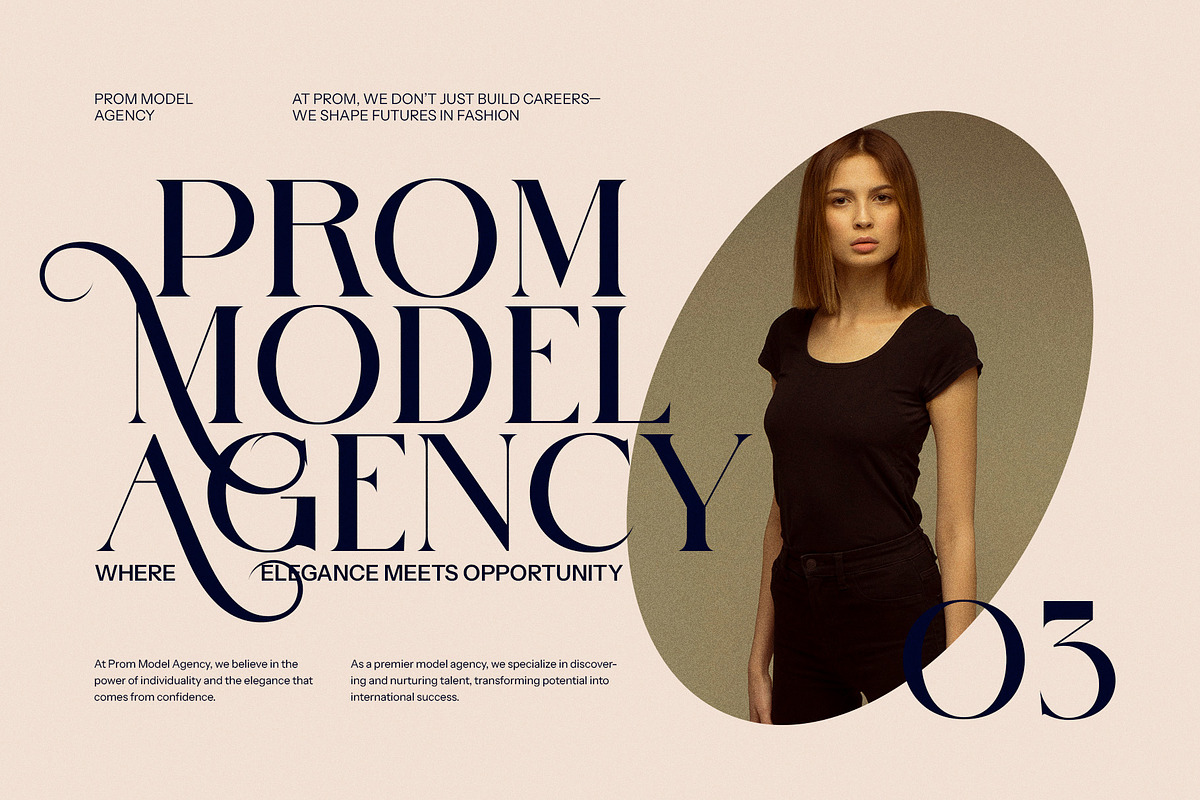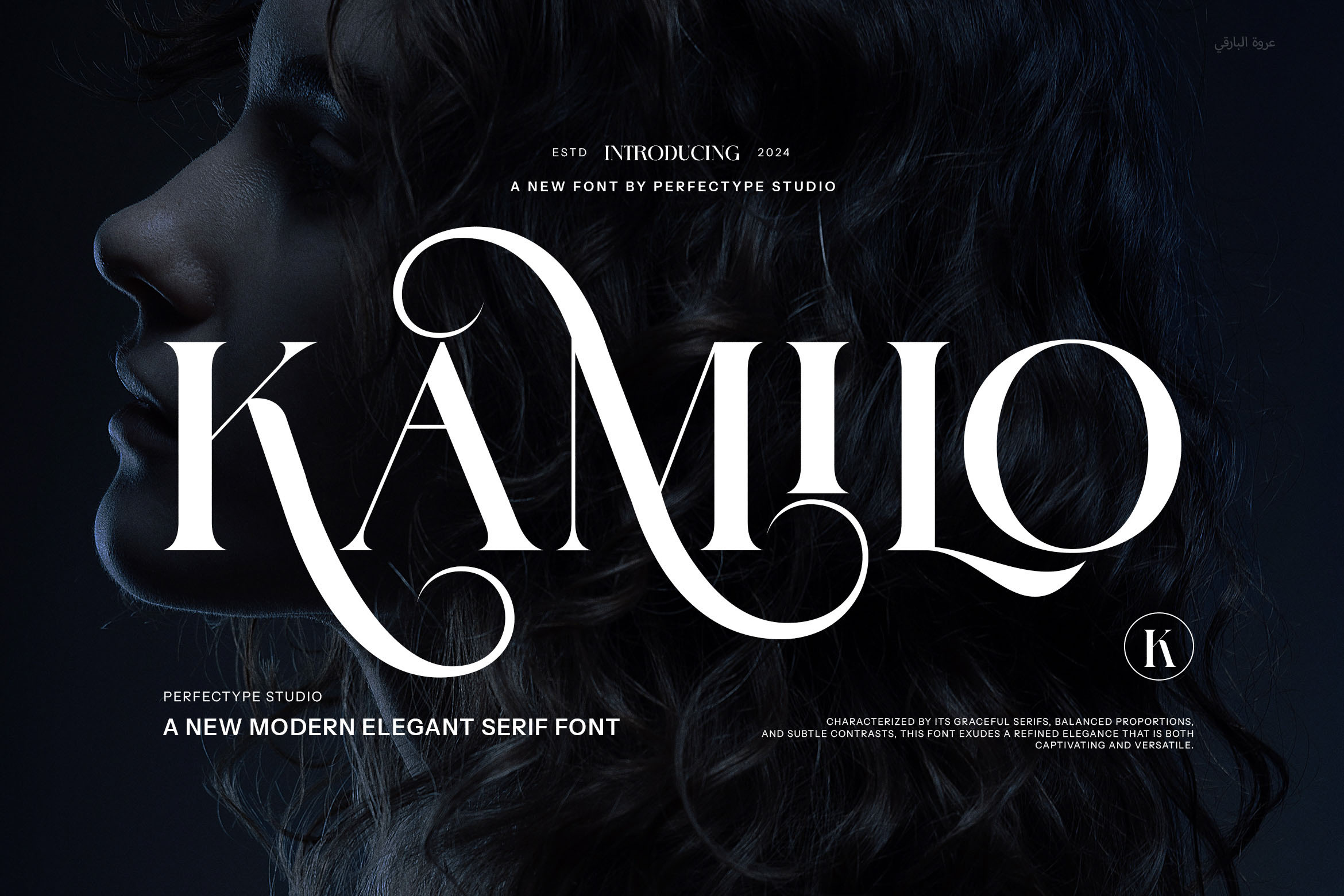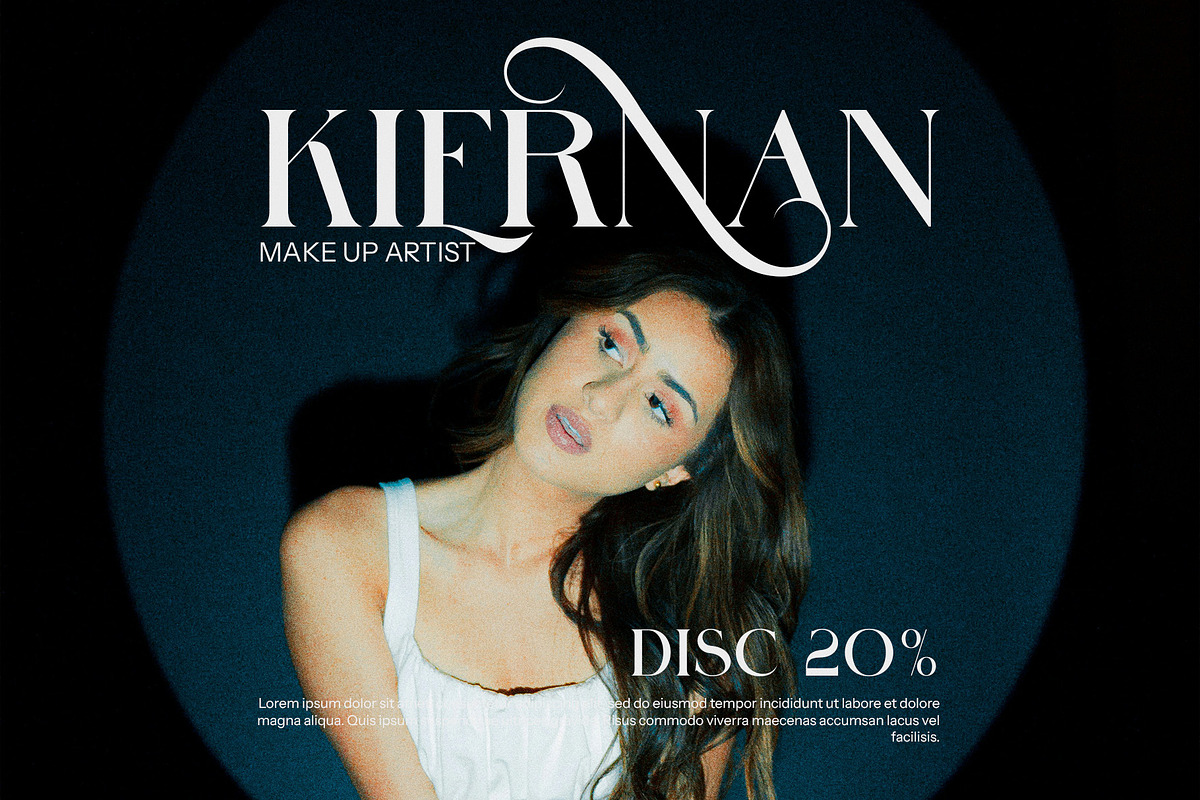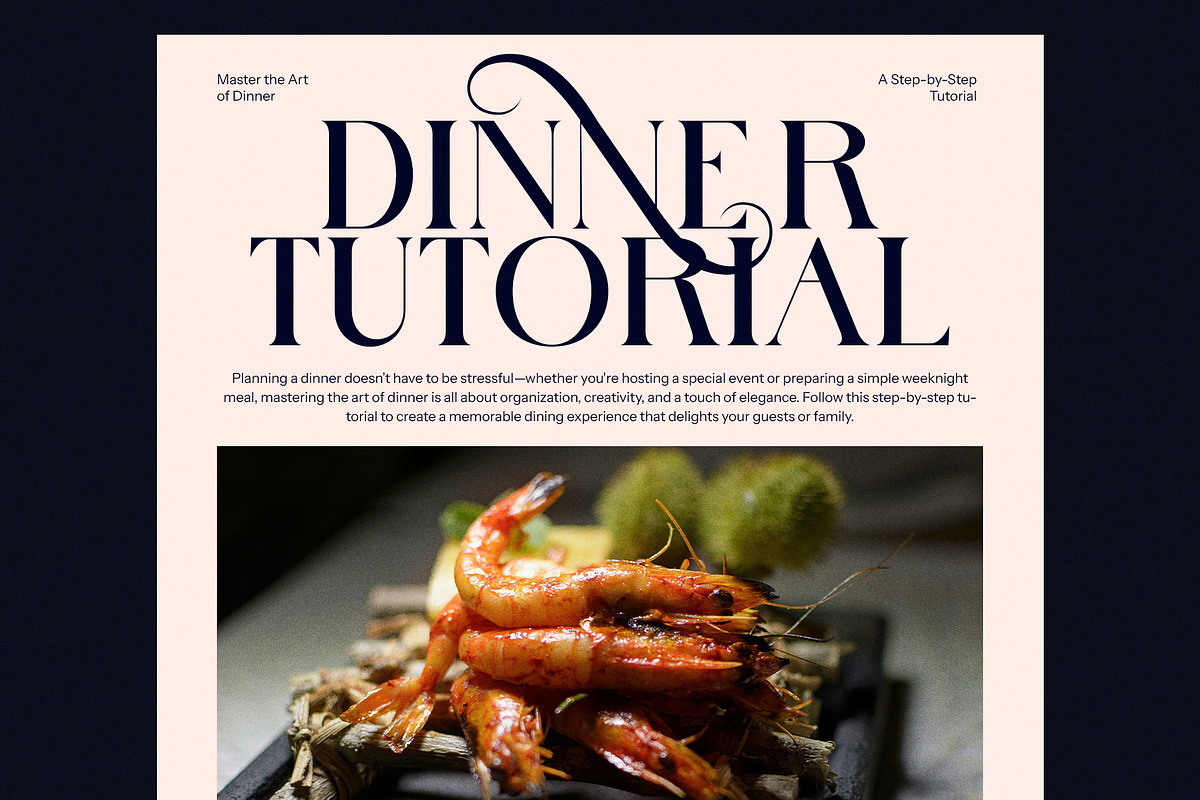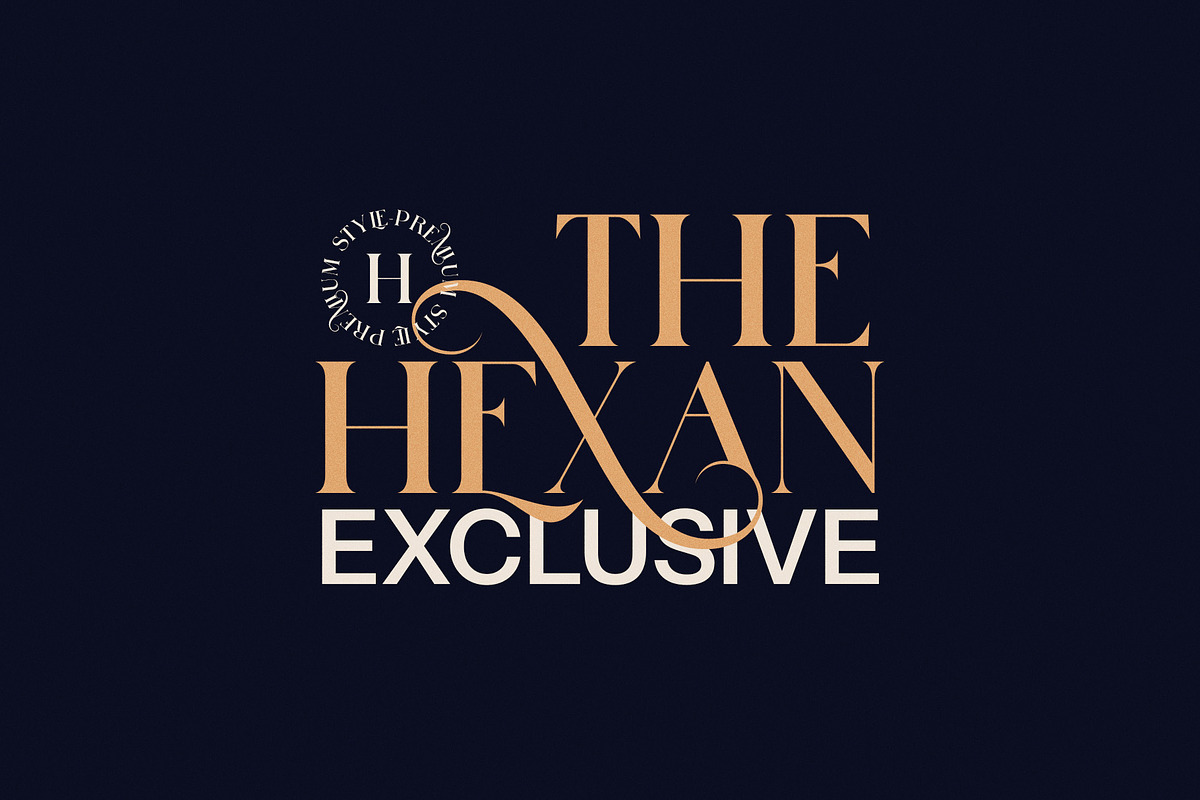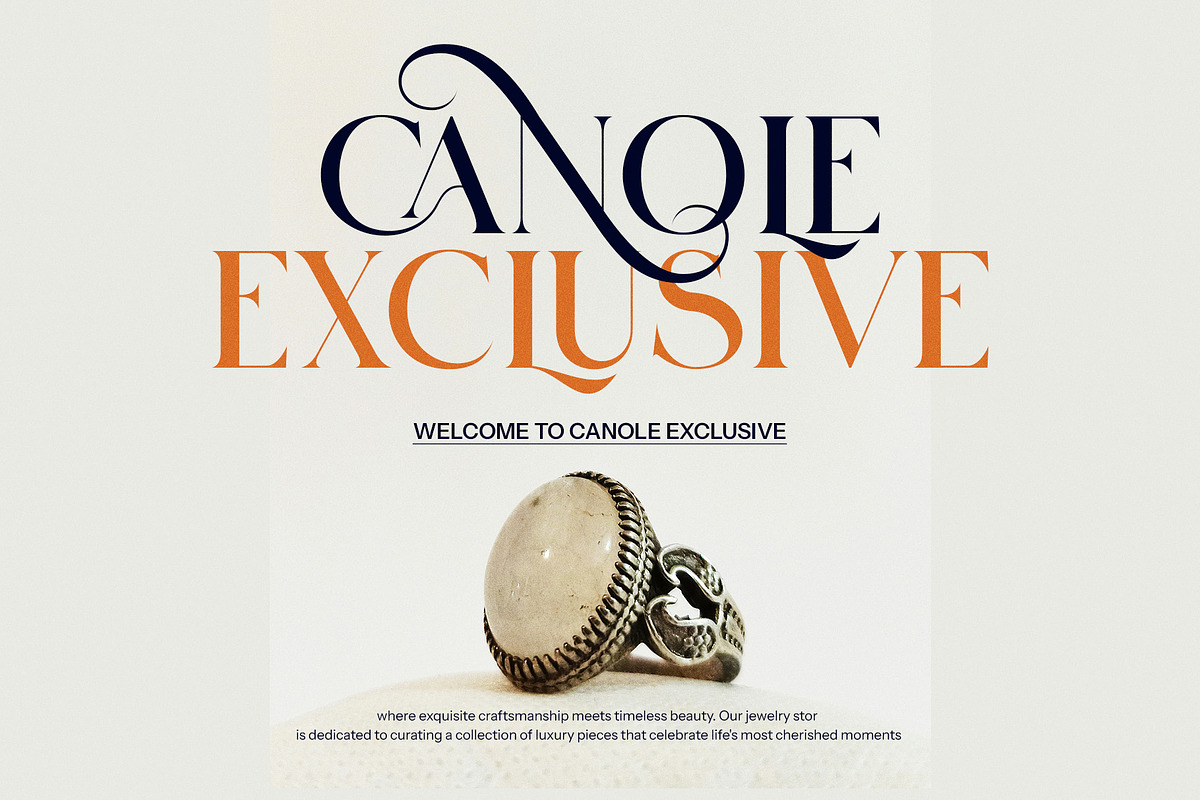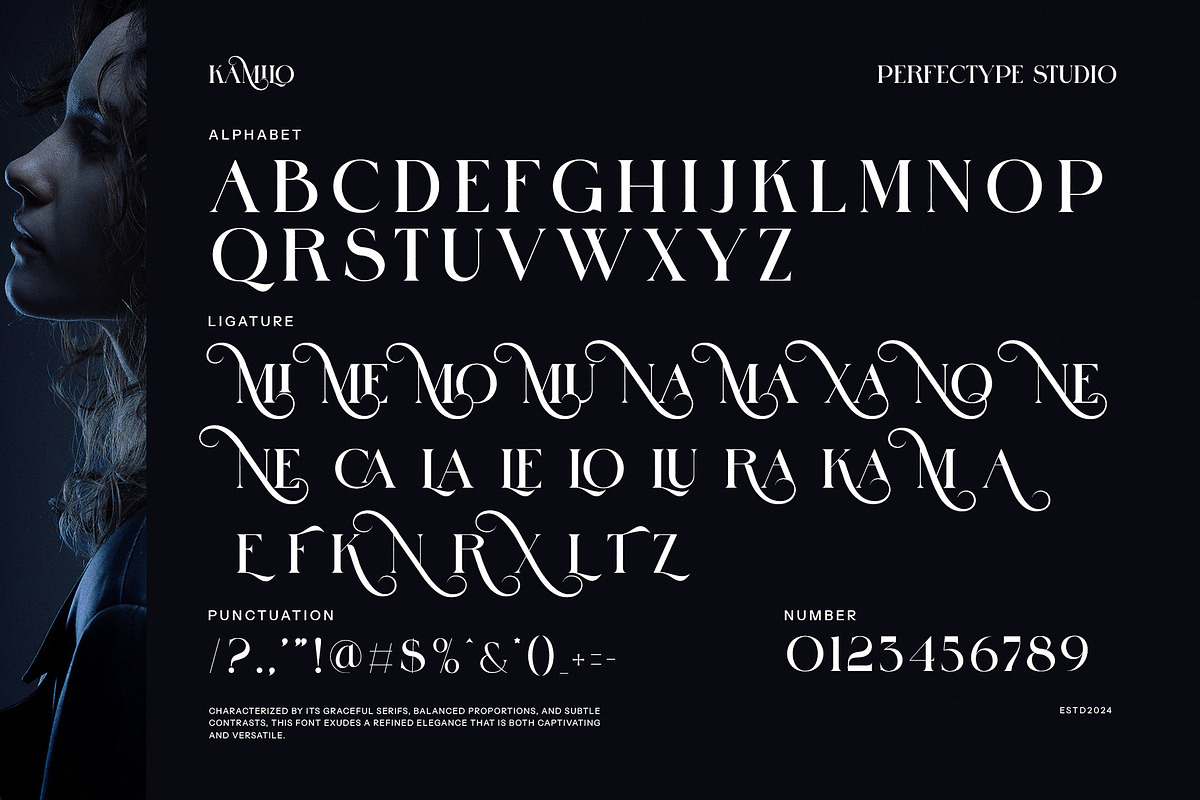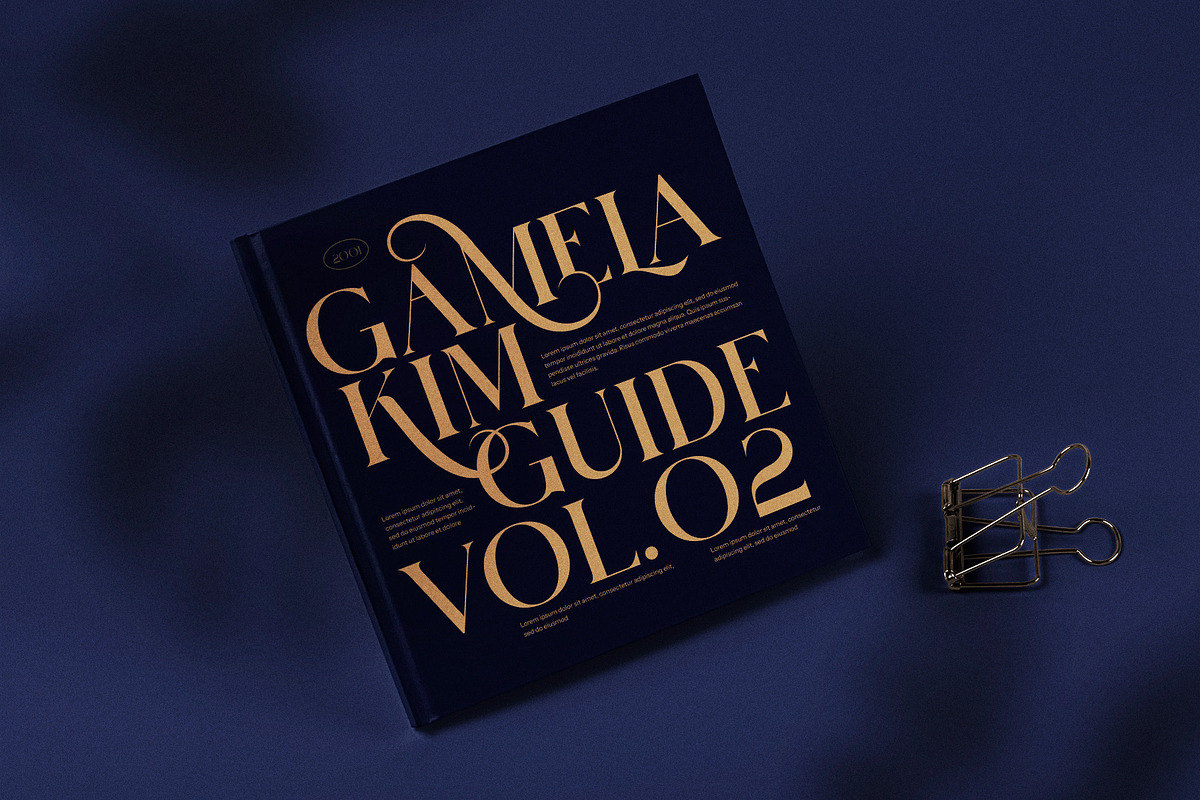
Kamilo Elegant Serif Font
Introducing Kamilo Elegant Serif Font—a beautifully crafted typeface that seamlessly blends elegance and style, designed for those who seek to make a statement through their typography. With its sophisticated serifs and graceful curves, Kamilo captures the essence of refined design, making it an ideal choice for a variety of creative projects. Each letter is thoughtfully constructed to convey both beauty and clarity, inviting readers to engage with your message on a deeper level.
At the core of Kamilo’s unique appeal is its stunning ligature feature. These exquisite ligatures elegantly intertwine letters, creating a fluid and cohesive typographic experience that elevates any design. This attention to detail not only enhances the visual impact but also provides a sense of harmony and sophistication that is rare in modern typefaces. With Kamilo, you can craft compositions that feel both dynamic and intentional, giving your projects an artistic flair that stands out.
Kamilo is exceptionally versatile, making it perfect for a wide range of applications. Whether you’re designing a chic logo, developing a cohesive branding strategy, creating stunning magazine layouts, or crafting enticing product packaging, this font adapts effortlessly to your vision. Its elegant design speaks to high-end aesthetics while remaining accessible and contemporary, ensuring it resonates with today’s audiences. The combination of stylish serifs and modern elements makes Kamilo suitable for both traditional and innovative contexts, providing the flexibility needed to express your unique brand identity.
Beyond its aesthetic charm, Kamilo is designed with usability in mind. Its legible characters maintain clarity across various sizes, making it equally effective for bold headlines and detailed text. This functionality ensures that your message is communicated with precision, whether in print or digital formats. Additionally, Kamilo’s extensive character set supports multilingual applications, broadening its usability for diverse audiences and enhancing its appeal for global branding efforts.
Experience the transformative power of Kamilo Elegant Serif Font and allow it to inspire your creativity. With each letter, you have the opportunity to craft narratives that resonate, capturing the attention of your audience and leaving a lasting impression. Whether you’re launching a new product, designing a stylish editorial, or reimagining your brand identity, Kamilo offers the elegance and sophistication needed to elevate your work to new heights. Let your designs tell a story of elegance and style with the exquisite touch of Kamilo.